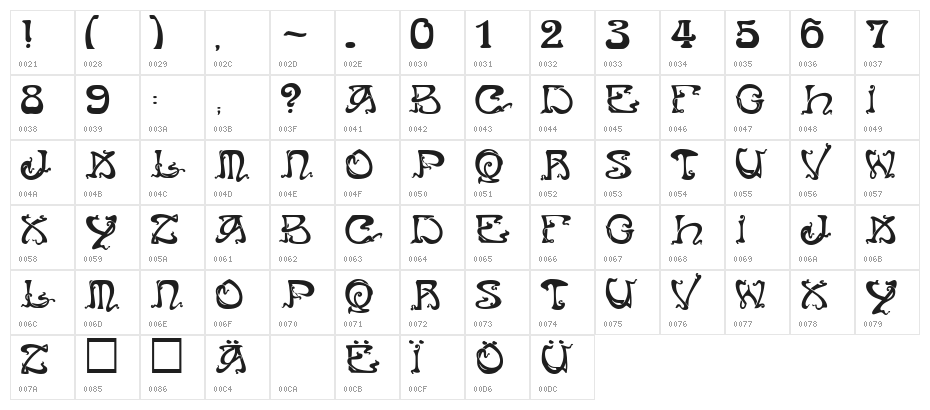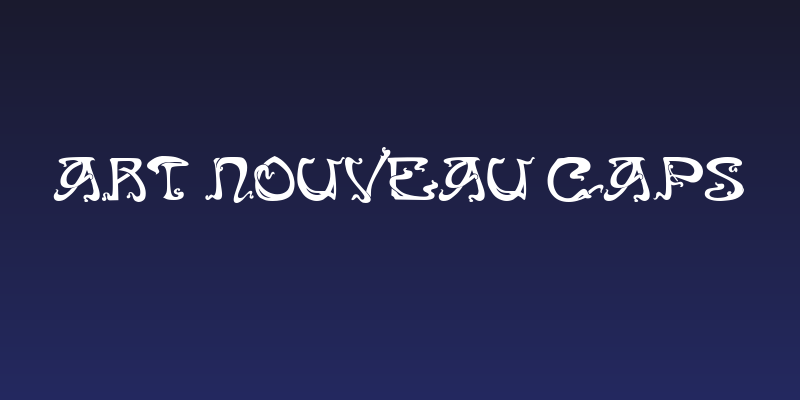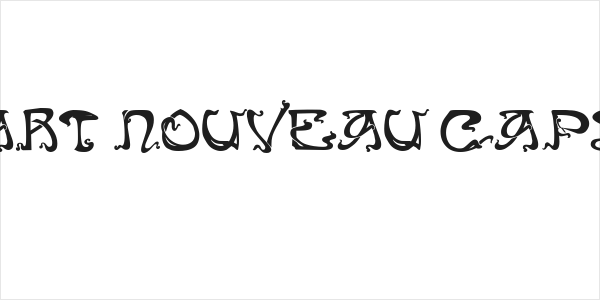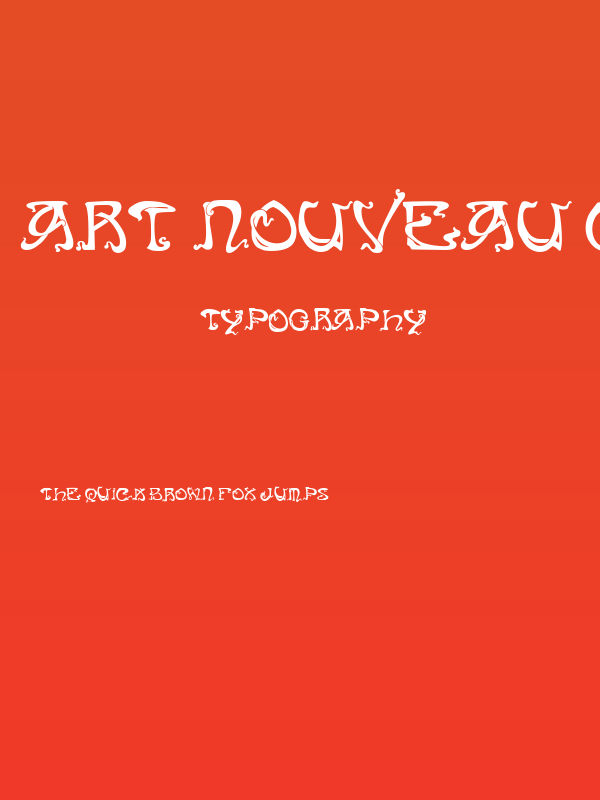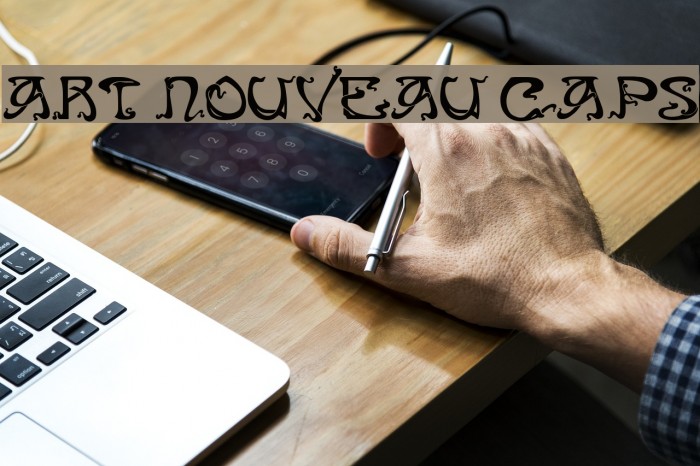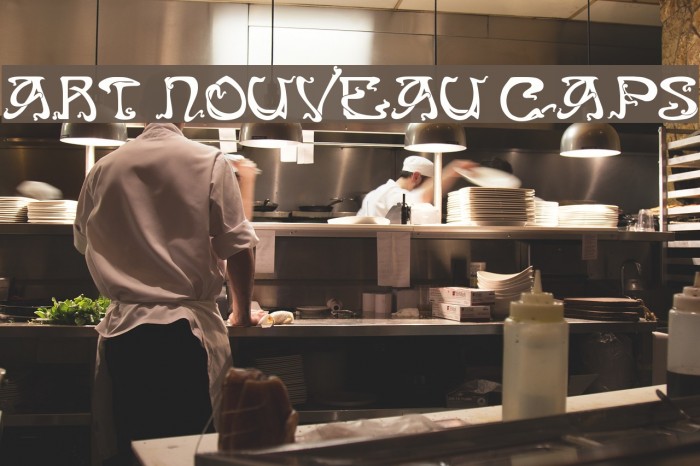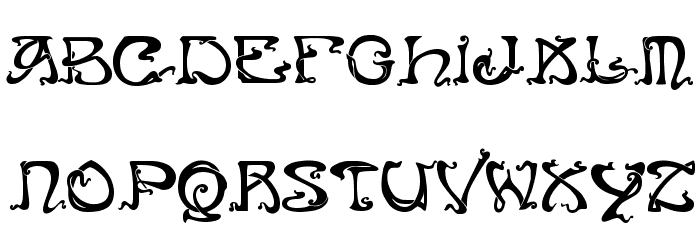
Art Nouveau Caps Font
Art Nouveau Caps Description
This font embodies the intricate and ornamental style characteristic of the Art Nouveau movement. Each letter features elaborate curves and decorative elements, creating a sense of elegance and sophistication. The uppercase letters are particularly ornate, with flowing lines and intricate details that give them a unique, artistic flair. The lowercase letters maintain the decorative theme but with slightly less complexity, ensuring readability while still capturing the essence of the style. The numbers are bold and consistent, complementing the overall aesthetic. This font is perfect for projects that require a touch of vintage elegance and artistic expression.
| Overall Style | Vintage, Decorative |
| Use Case | Headlines, Logos, Decorative text |
| Proposed Projects | Ideal for wedding invitations, vintage-themed posters, artistic branding, and decorative signage. |